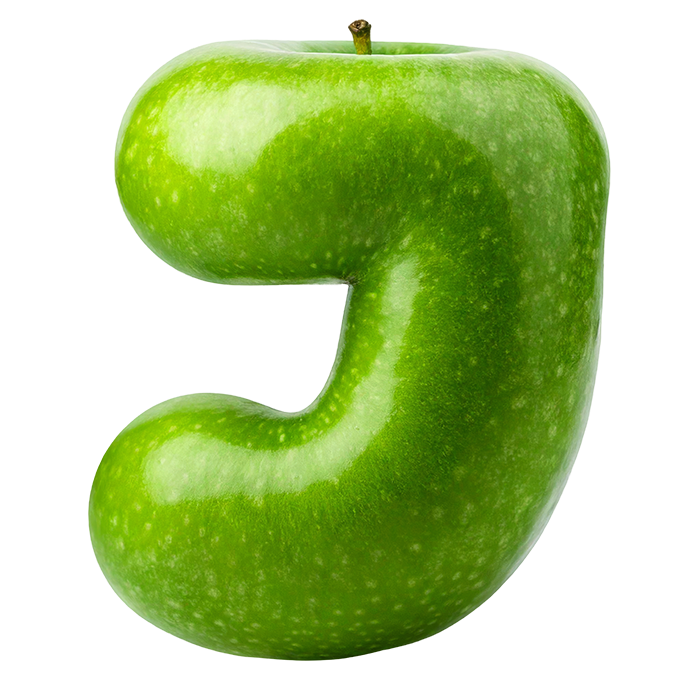
Green Apple Font. Glossy Orchard Bubble Letters
Chunky rounded capitals shaped from whole green apples, the skin waxy and speckled, with a dimpled stalk well sitting at the top of most letters. The Green Apple Font keeps open counters and soft blunt terminals, so words hold together even at smaller sizes. Figures, currency signs and punctuation all grow exactly the same skin.
Straight Off the Branch
Every capital here is a whole apple bent into shape, naturally. The skin stays waxy and taut too, with tiny pale speckles scattered across it. A dimpled stalk well sits at the top of most glyphs, and a few keep the stalk itself. The green runs grassy rather than minty, darkening where the form turns away. Because each letter catches light differently, a word never looks flat. Turn a glyph and the highlight travels across the skin the way it would on real fruit.
Soft Shapes, Hard Shine
The letterforms themselves, of course, are chunky, rounded and deliberately childlike. Strokes swell through the middle and end in soft blunt terminals, so nothing reads sharp. Since the counters stay open, words hold together even at smaller sizes. Highlights sit hard and white on every curve too, which keeps the fruit looking fresh. In addition, figures, currency signs and punctuation grow the same skin.
Animated apple letters of the Green Apple Font
Where the Green Apple Font Lands
In short, anything sold as fresh and healthy suits this one immediately. Juice brands, greengrocers, school campaigns, cider labels, lunchbox products and nursery signage likewise carry it well. Because the green is loud, cream and pale grey grounds work best behind it. For a smoother stylised take on the same fruit, see the older Apple Green alphabet instead. Meanwhile the two sit happily side by side. The stalk detail also gives a single initial somewhere to sit.